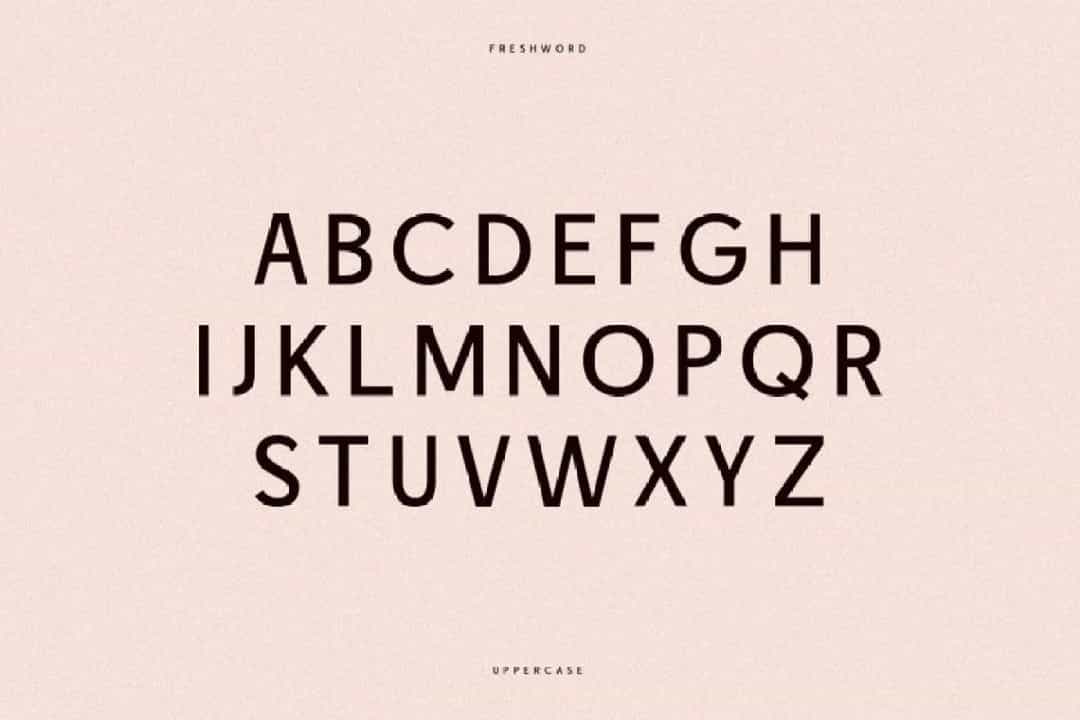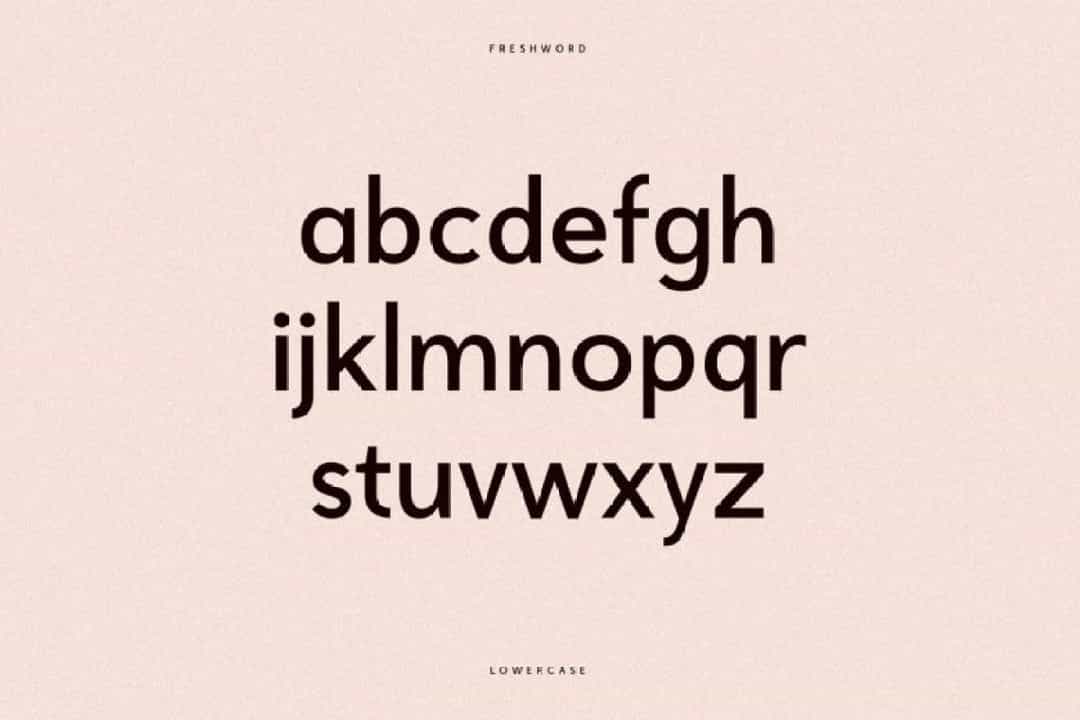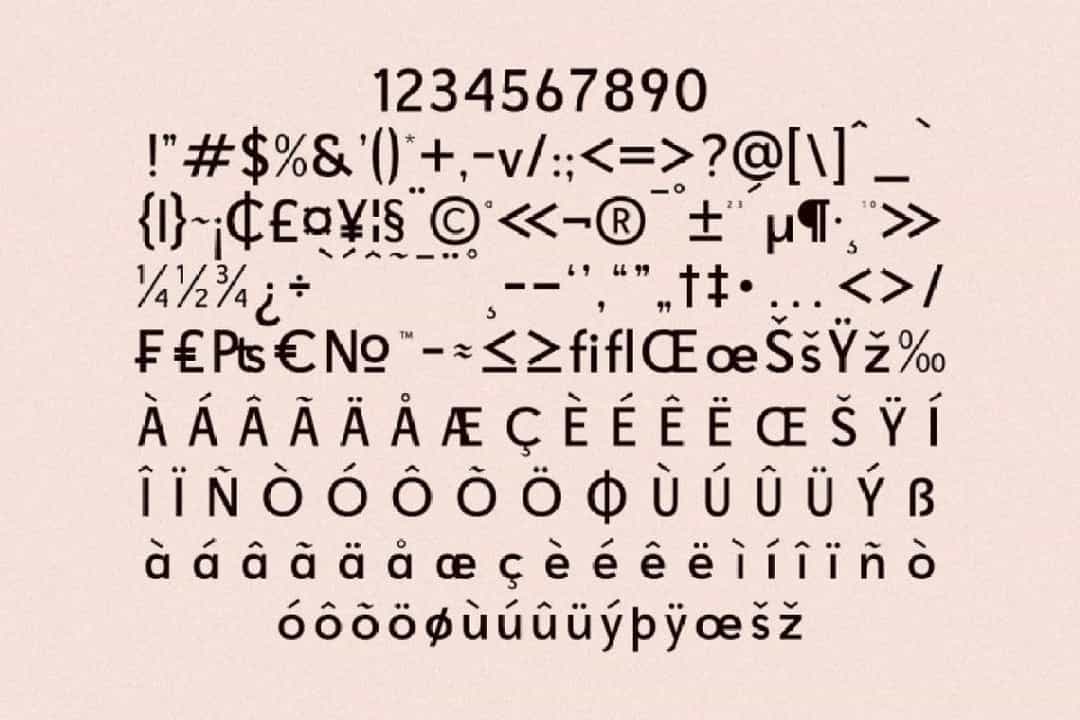
Freshwost is an elegant and contemporary sans serif font with its own distinct style and appearance, ideal for creating classy logos, movie or book titles, clothing labels, magazines lettering as well as quotes. This typeface also works well when adding texture to books as well.